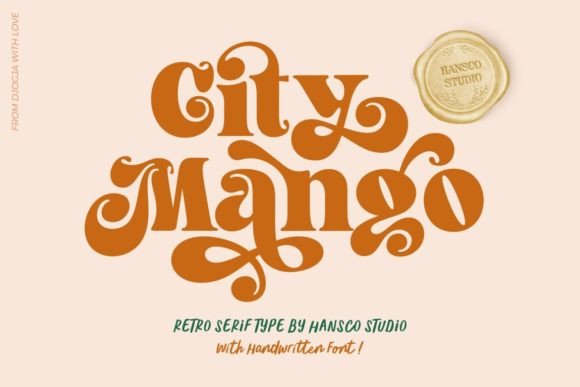
Introducing City Mango Font, the ultimate choice for all your design needs! This remarkable serif font, created by HansCo, is not just any ordinary typeface. It is the epitome of nostalgia, effortlessly transporting you back to the golden era with its incredible vintage aesthetic.
Imagine infusing your designs with a touch of whimsical charm and timeless elegance. City Mango Font is the key to unlocking that special retro vibe you've been yearning for. Whether you're designing mugs, customizing Cricut projects, or working on any other creative endeavor, this font is the perfect companion.
But what sets City Mango Font apart from the rest? Its impeccable design and attention to detail make it a true standout. Each character has been meticulously crafted to perfection, ensuring that every stroke is a work of art. With this font, your creative ideas will soar to new heights, captivating your audience and leaving a lasting impression.
One of the remarkable features of City Mango Font is its PUA encoding. This means that accessing the wide range of glyphs and swashes is a breeze! Unleash your creativity and experiment with various letter combinations and decorative elements to add a unique flair to your designs. The possibilities are endless, and the results will be nothing short of breathtaking.
Downloading City Mango Font is not just a practical choice; it's an emotional one too. It evokes feelings of joy, nostalgia, and excitement, making every design project a delightful experience. Whether you're a seasoned designer or just starting your creative journey, this font will effortlessly elevate your work and set you apart from the crowd.
So why wait? Embrace the charm of City Mango Font and let your imagination run wild. Create stunning visuals, evoke emotions, and make each design truly unforgettable. Get ready to embark on a journey to the past while making your mark in the present. Your designs deserve nothing less than the best font for mugs and Cricut projects - City Mango Font.